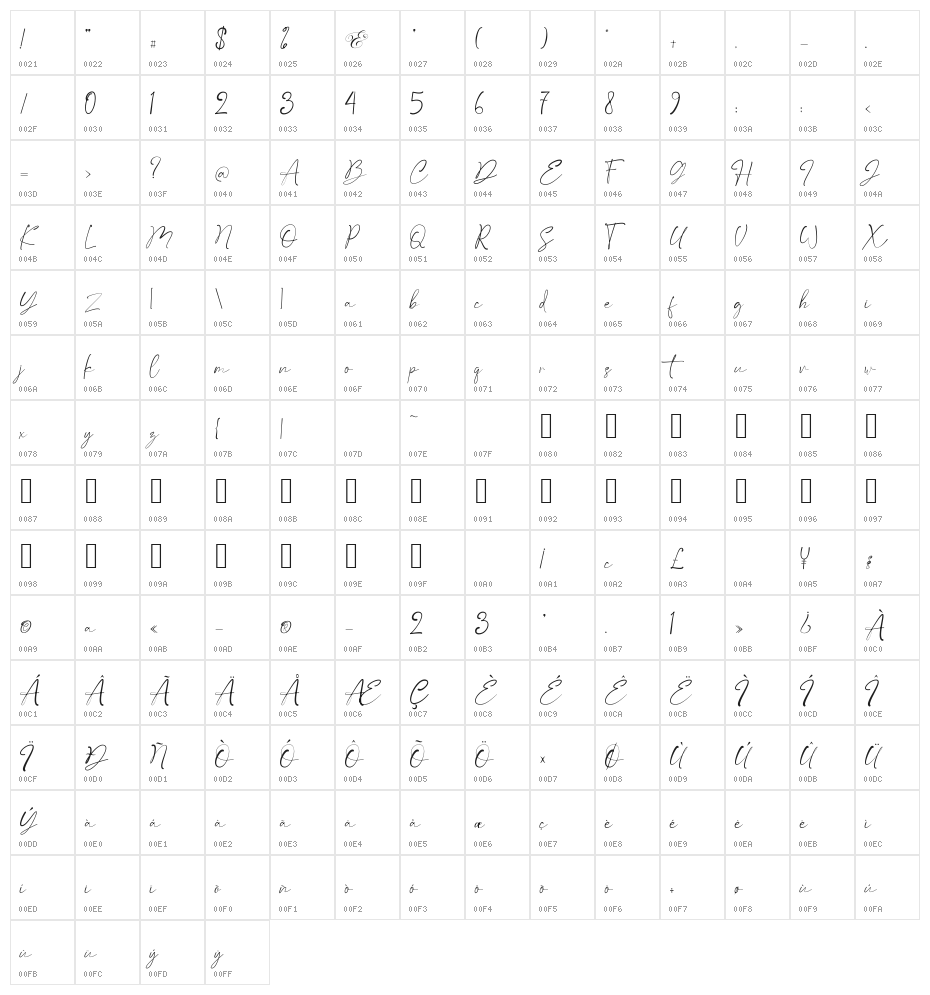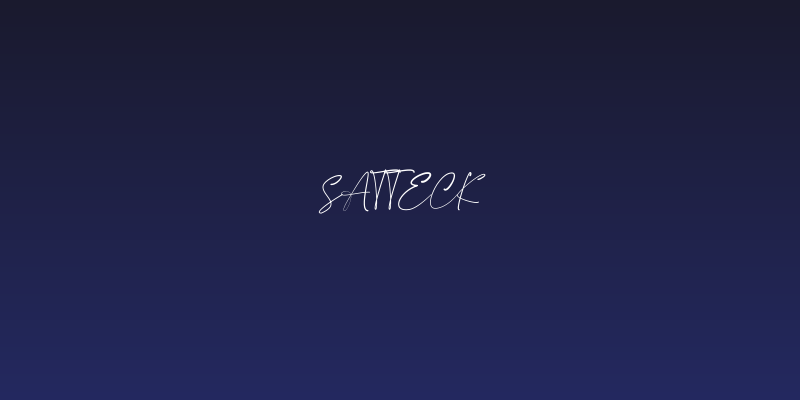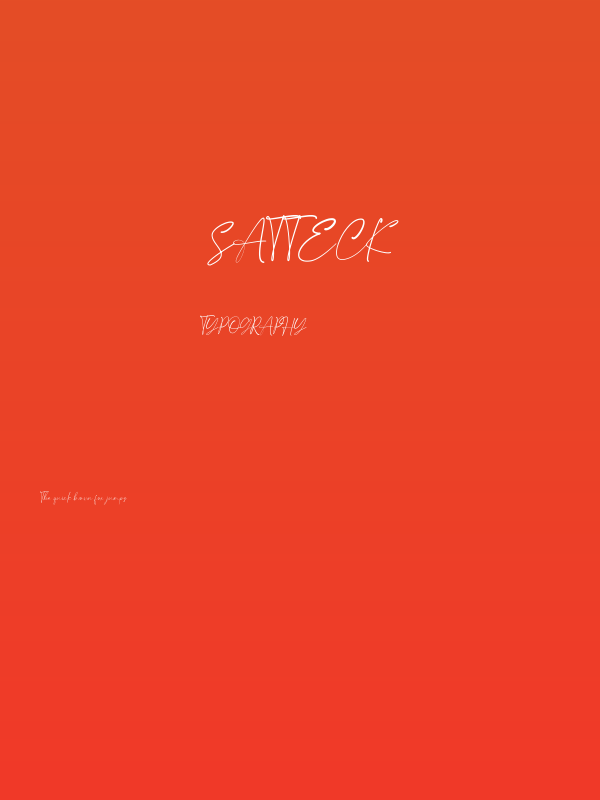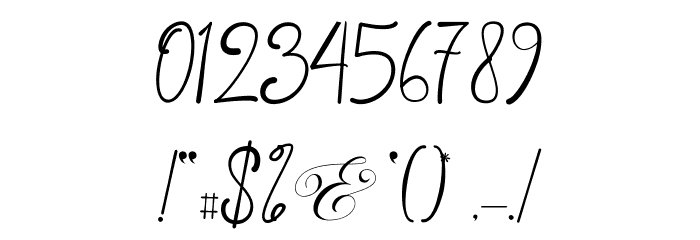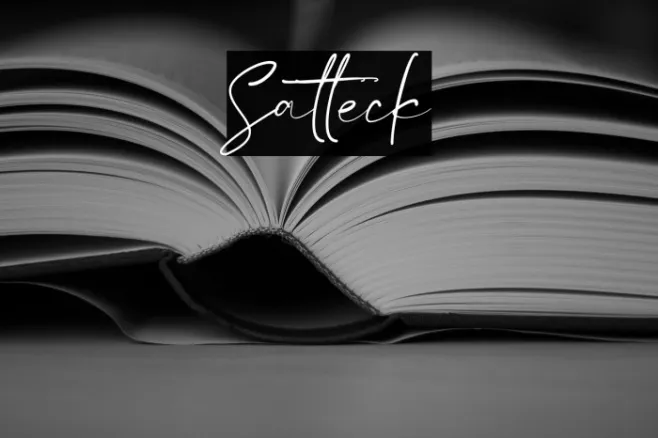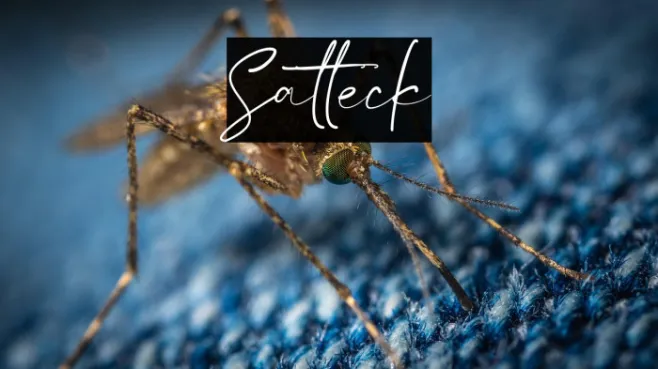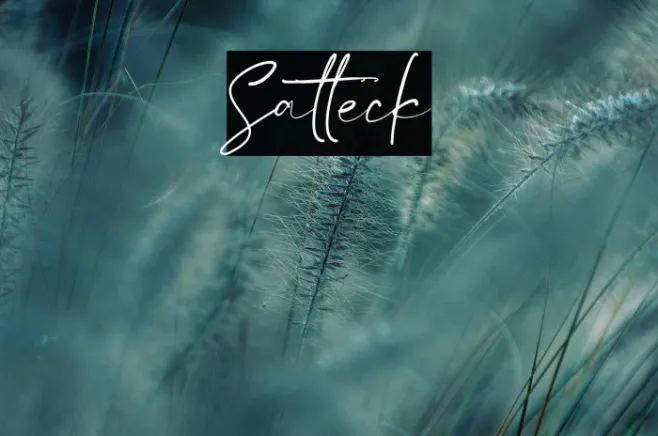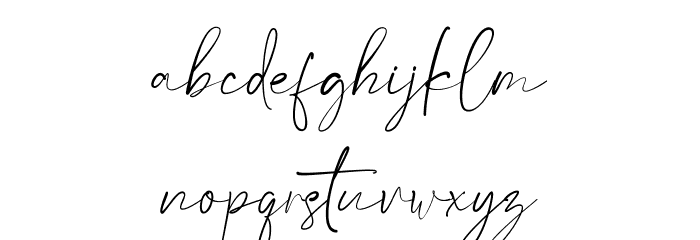
Satteck Font
Satteck Description
This font exudes a lively and elegant handwritten style, characterized by its fluid and dynamic strokes. The uppercase letters are bold and sweeping, with a distinct flair that adds a sense of movement and grace. The lowercase letters maintain a consistent flow, complementing the uppercase with their delicate curves and loops. Numbers are crafted with the same attention to detail, ensuring they blend seamlessly with the alphabet. Special characters are thoughtfully designed, maintaining the overall aesthetic of the font. The font's playful yet sophisticated nature makes it versatile for various creative applications.